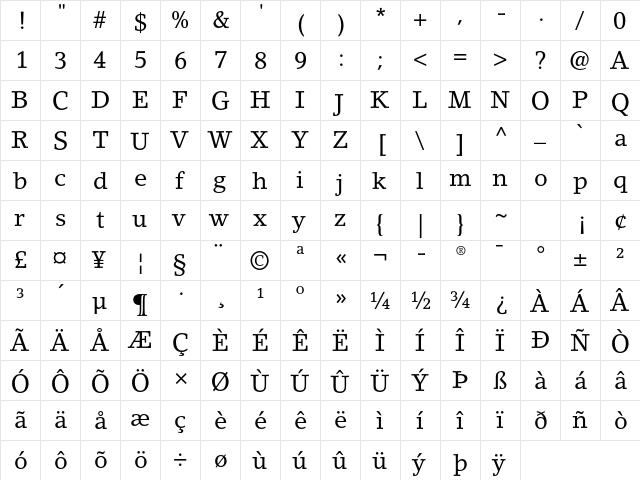
LinoLetter Std Roman Font Preview
LinoLetter Std Roman
LinoLetter Std Roman Font Details
| Designer | Reinhard Haus, Andre G߲tler |
Design Context for LinoLetter Std Typeface
LinoLetter Std offers clean, dependable letterforms without strong stylistic allegiance, making it a practical choice for designers who need flexibility.